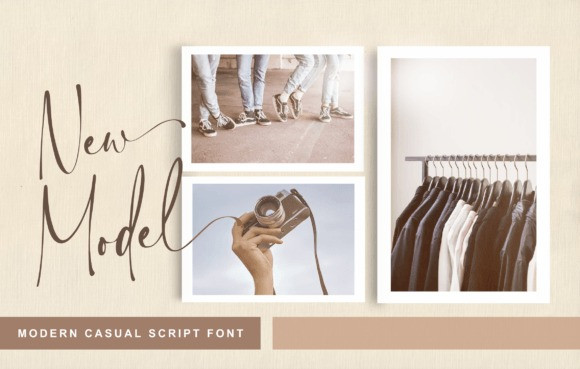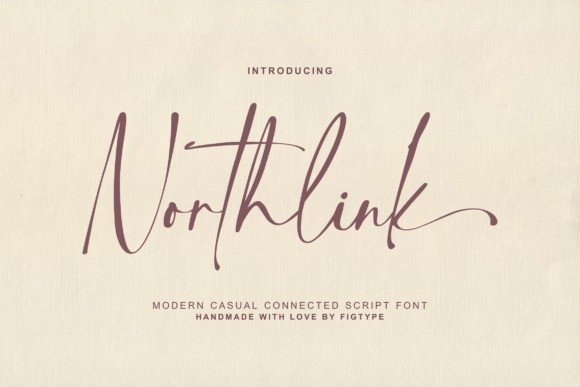
Northlink Font
Northink Font is a unique and eye-catching typeface that mimics the texture of ink on paper. Its irregular lines and blots create a playful and artistic effect, perfect for designs that call for a handmade touch.